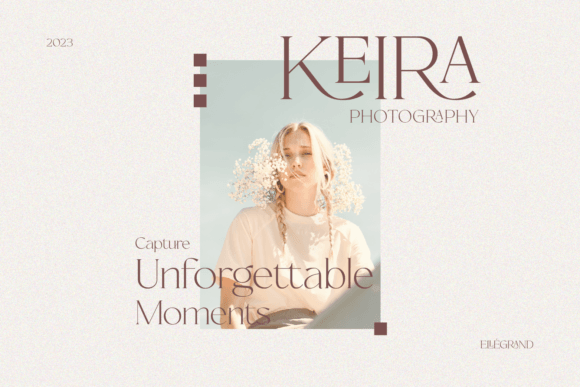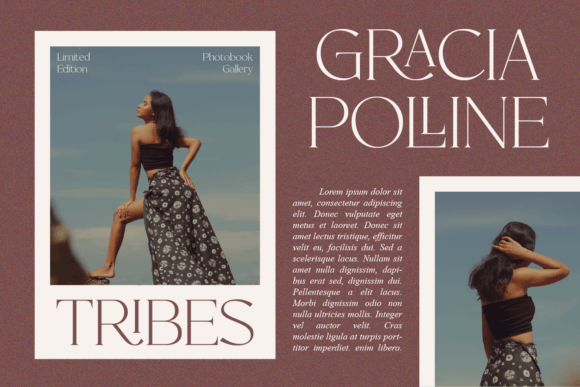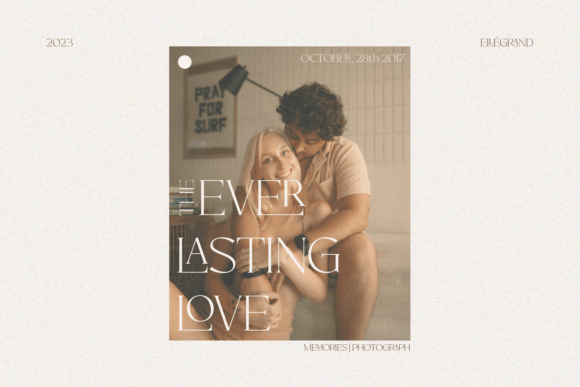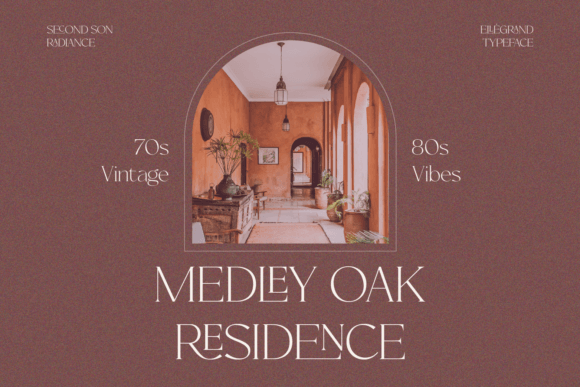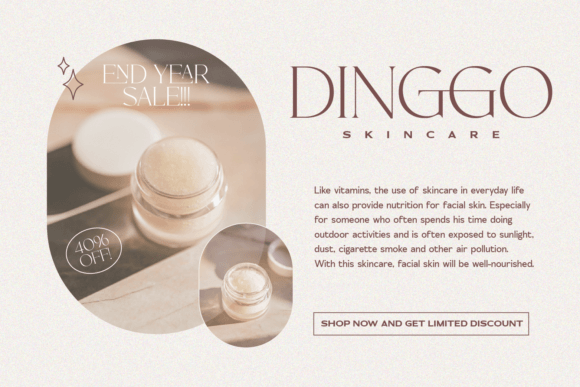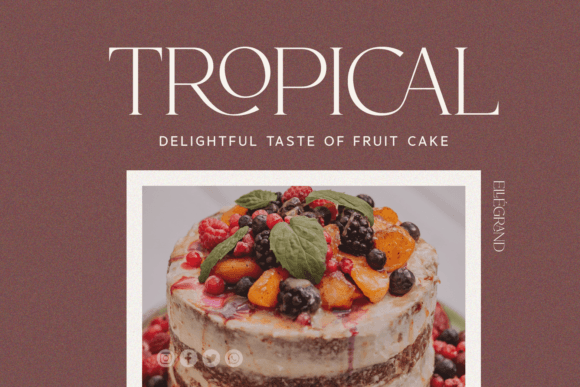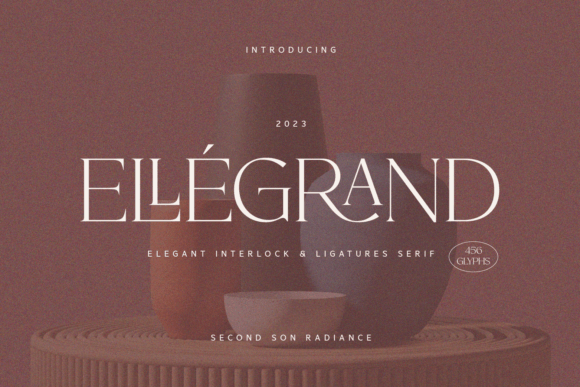
Introducing Ellegrand Font: The Epitome of Elegance and Sophistication
In the realm of typography, few fonts manage to convey the essence of luxury, elegance, and femininity as effortlessly as Ellegrand. This sophisticated, charming serif font has been specifically designed for projects that demand a fashionable touch, making it the perfect choice for designers and crafters aiming to create modern, chic designs.
The Design Philosophy Behind Ellegrand
Ellegrand’s design is rooted in the pursuit of elegance and refinement. Its serif structure adds a classic touch, while its clean lines and balanced proportions ensure a modern appeal. This font is not just a typeface; it’s an expression of style and sophistication, meticulously crafted to elevate any project to new heights of luxury and charm.
Key Features of Ellegrand Font
- Sophisticated Serif Structure: Ellegrand boasts a serif design that exudes elegance and refinement, perfect for luxury and high-end projects.
- Fashionable Touch: Its unique style elements ensure that your designs stand out with a fashionable edge, ideal for brands and projects that want to appear modern and chic.
- Elegant and Feminine: Ellegrand is tailored for projects that require a touch of femininity and grace, making it suitable for a wide range of applications from fashion to beauty and lifestyle.
- Versatility: This font is incredibly versatile, suitable for use in headings, titles, and short texts, ensuring consistency and elegance across all your design projects.
Applications of Ellegrand Font
The applications of Ellegrand are vast and varied, limited only by your imagination. Here are some of the most popular uses:
- Fashion Brands: Ellegrand is perfect for fashion brands looking to convey a sense of luxury, style, and sophistication.
- Beauty and Cosmetics: For beauty and cosmetics companies aiming to project an image of elegance and allure, Ellegrand is an excellent choice.
- Lifestyle and Hospitality: Businesses in the lifestyle and hospitality sectors can leverage Ellegrand to communicate a sense of refinement and high-class service.
- Wedding and Event Design: Designers working on wedding and event materials can use Ellegrand to add a touch of class and sophistication to their creations.
Why Choose Ellegrand?
Choosing Ellegrand for your design projects comes with numerous benefits:
- Unique Style: Ellegrand offers a unique style that sets it apart from more traditional typefaces, ensuring your designs have a distinctive look.
- High Readability: Despite its elegant and sophisticated design, Ellegrand maintains high readability, making it suitable for both headings and body text.
- Easy to Pair: Its classic serif structure makes Ellegrand easy to pair with a variety of other typefaces, offering flexibility in your design work.
Ellegrand is more than just a font; it’s a design statement that speaks of luxury, elegance, and a touch of modern sophistication. Whether you’re a designer working on a high-end fashion brand, a craftsperson creating bespoke wedding invitations, or a digital artist looking for the perfect typeface to complement your artwork, Ellegrand is an exceptional choice. Its unique blend of classic serifs and fashionable lines ensures that your projects stand out with a charming and sophisticated appeal. Discover the elegance of Ellegrand and elevate your designs to new heights of style and refinement.